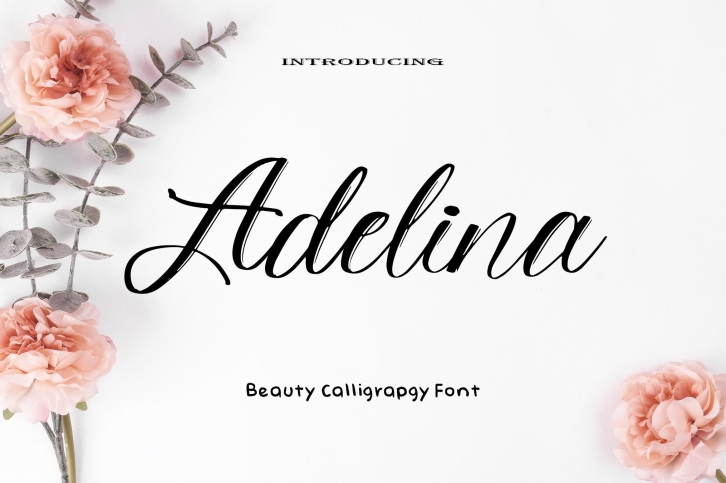
Adelina is a lovely and delicate script font that exudes elegance and class. This font was particularly crafted for those who need a beautiful and refreshing look to their designs.Â